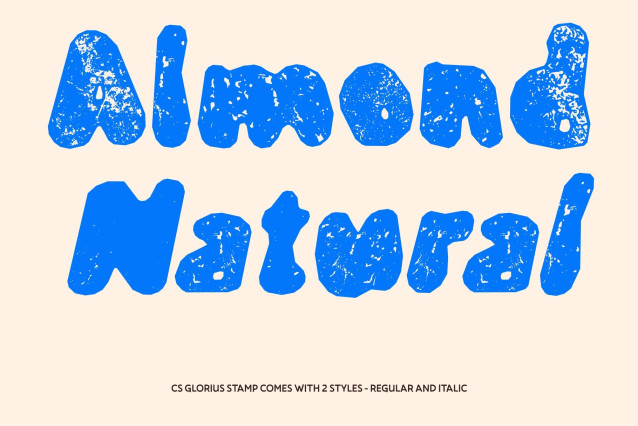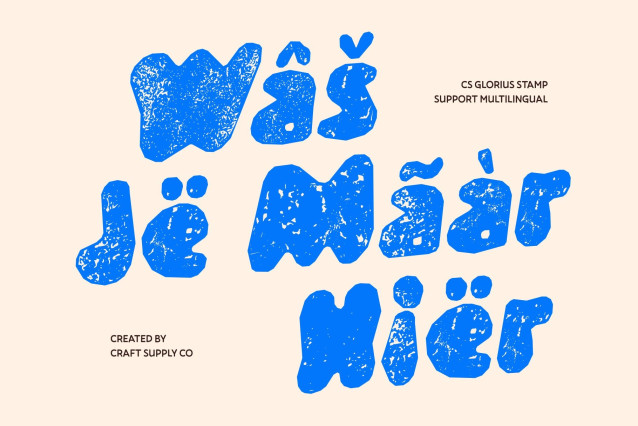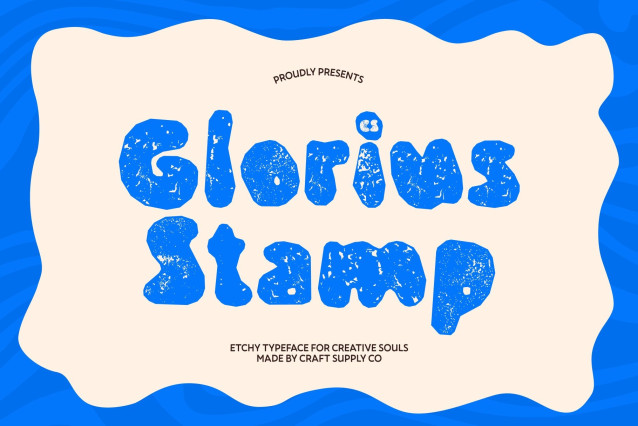
CS Glorius Stamp Font
CS Glorius Stamp – Etchy Font with Playful Vintage Personality
Lively, Irregular Style with a Friendly Feel
This is an etchy display font featuring bold, hand-drawn strokes and a charmingly irregular yet balanced design. Its spontaneous, sketch-like letterforms radiate cheerful energy, while the added stamp texture introduces a warm, handcrafted feel that makes every word more expressive and lively.
Designed for Playful and Kid-Friendly Projects
With its joyful and imaginative style, this font is perfect for kid-focused designs. From colorful storybooks and whimsical toy packaging to educational posters and children’s branding, the stamped texture adds a nostalgic, handcrafted charm that enhances its friendly and welcoming tone.
Stamp Texture for Artistic Character
The stamp effect brings subtle imperfections and tactile detail inspired by traditional printing and crafting techniques. This artistic texture enriches the font’s playful personality, giving it a vintage touch that feels authentic, creative, and full of life.